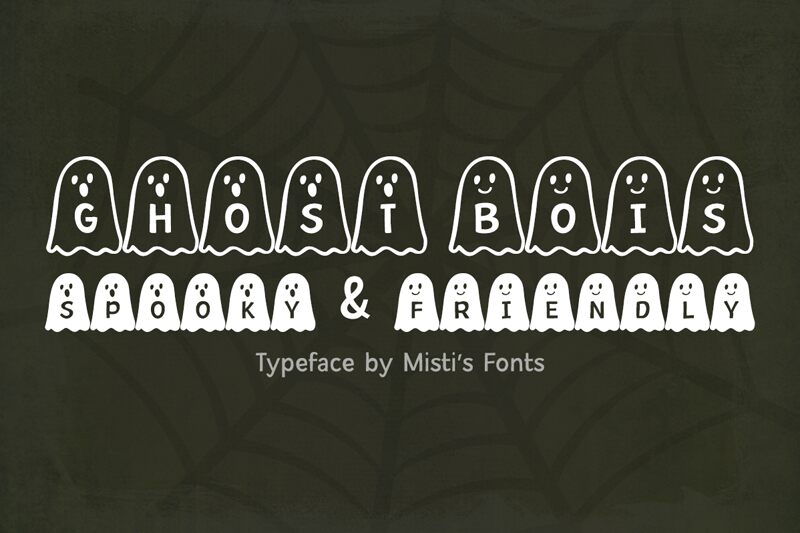
Ghost Bois Friendly font family by Misti's Fonts is a free holiday-themed font family that contains 4 font styles. The typeface is inspired by the lighthearted side of Halloween and other related festivities and creates a whimsical and slightly eerie character while remaining charming and fun. Several playful illustrations are included to enhance its decorative theme. This is a font that has some informal and unprofessional elements.
Introducing Ghost Bois, a spirited Halloween font brimming with whimsical and eerie phantoms. Its delightful mix of spooky and friendly characters makes it an ideal choice for your party invitations, poster designs, crafting projects, and all Halloween-themed creations. Infuse your designs with a touch of spectral charm using Ghost Bois.